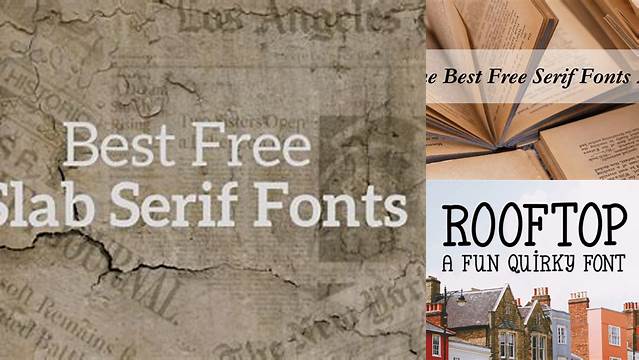
Best Fonts In Use: A Free And Comprehensive Guide
Introduction to Free Fonts in Use
Hey guys! Let's dive into the exciting world of fonts in use, particularly focusing on the fantastic realm of free fonts. When we talk about fonts in use, we're not just discussing the design of the typeface itself, but also how it's implemented in various projects – think logos, websites, posters, and more. Finding the right font can be a game-changer for any design, and the fact that there are so many amazing free options out there is just incredible. In this guide, we'll explore the importance of selecting the perfect font, where to find these free gems, and how to use them effectively in your projects. The impact of typography on design cannot be overstated. A well-chosen font can convey the intended message, evoke emotions, and create a cohesive visual identity. Whether you're working on a sleek, modern website or a vintage-inspired poster, the font you choose plays a crucial role in the overall aesthetic and effectiveness of your design. Free fonts offer a cost-effective solution for designers, especially those just starting out or working on projects with limited budgets. However, the term "free" doesn't mean you have to compromise on quality or style. There is a vast collection of high-quality free fonts available, ranging from classic serif and sans-serif typefaces to more decorative and script styles. Understanding how fonts are used in different contexts is key to making informed decisions. Consider the overall tone and purpose of your project. Are you aiming for a professional and corporate look? A playful and whimsical feel? Or something elegant and sophisticated? The fonts you choose should align with these goals. Exploring real-world examples of fonts in use can provide valuable insights and inspiration. Look at how different fonts are used in logos, websites, magazines, and other media to see what works well and why. Pay attention to the combinations of fonts used together, as this can significantly impact the visual harmony of your design. So, let's get started on this journey to discover the best free fonts in use and how they can elevate your design projects!
Why Choosing the Right Font Matters
Choosing the right font is super important, guys, because it's like the voice of your design. It's not just about making things look pretty; it's about communicating effectively. The right font can grab attention, set the mood, and even make your message more memorable. Think of it this way: a formal invitation would look totally out of place with a bubbly, cartoonish font, right? Similarly, a serious business report needs a font that screams professionalism and clarity. Fonts have personalities, and they can significantly influence how people perceive your content. Imagine you're designing a logo for a tech startup. A sleek, modern sans-serif font might be the perfect choice to convey innovation and forward-thinking. On the other hand, if you're working on a vintage-inspired poster, a classic serif font with a touch of character could be just what you need. The key is to align the font's personality with the overall message and brand identity. Beyond aesthetics, readability is another critical factor. A beautiful font is useless if it's difficult to read, especially in body text. Consider the size, spacing, and contrast of the font to ensure it's legible across different devices and screen sizes. In the digital world, where content is often consumed on smartphones and tablets, readability is paramount. Font psychology also plays a role in font selection. Different fonts evoke different emotions and associations. Serif fonts, with their classic and traditional feel, often convey authority and trustworthiness. Sans-serif fonts, with their clean and modern lines, tend to project a sense of simplicity and clarity. Script fonts, with their elegant and flowing strokes, can add a touch of sophistication and creativity. Understanding these psychological cues can help you choose fonts that resonate with your target audience and reinforce your message. Moreover, the right font can enhance brand recognition. Consistent use of specific fonts across your branding materials – from your logo and website to your marketing collateral – can create a strong visual identity that customers easily recognize and associate with your brand. This consistency builds trust and reinforces your brand's message. So, when you're choosing a font, don't just pick something that looks nice. Think about the message you want to convey, the emotions you want to evoke, and the overall impact you want to make. The right font can be a powerful tool in your design arsenal, helping you communicate effectively and create memorable experiences.
How to Effectively Use Free Fonts in Your Projects
Alright, guys, so you've got your hands on some amazing free fonts – that's awesome! But now comes the crucial part: using them effectively in your projects. Just downloading a cool font doesn't guarantee a stellar design. It's all about how you implement it. Let's break down some key strategies for making the most of your free font finds. First off, think about hierarchy. Hierarchy is how you guide the viewer's eye through your design, and typography plays a huge role in this. Use different font sizes, weights, and styles to create a clear visual hierarchy. For example, your headings should be larger and bolder than your body text, and you might use a distinct font for subheadings to further differentiate them. This helps readers quickly grasp the structure and key information of your content. Font pairing is another critical skill. Combining different fonts can add visual interest and create a more dynamic design, but it can also go horribly wrong if not done carefully. A general rule of thumb is to pair a serif font with a sans-serif font. This creates a nice contrast while maintaining readability. For instance, you might use a bold sans-serif for headings and a classic serif for body text. Tools like FontPair can help you discover harmonious font combinations. Consider the context of your design. The font you choose should align with the overall tone and purpose of your project. A playful, whimsical font might be perfect for a children's book but would be out of place in a corporate report. Think about the message you're trying to convey and select fonts that reinforce that message. Pay attention to readability. A beautiful font is useless if it's difficult to read. Ensure that your font is legible at different sizes and on different devices. Consider factors like letter spacing, line height, and contrast. If your text is too small or the spacing is too tight, it can be straining to read, especially on screens. Use white space effectively. White space, or negative space, is the empty space around your text and other design elements. It's crucial for creating a clean and uncluttered design. Give your text room to breathe by using sufficient margins and padding. This improves readability and helps draw attention to the important elements of your design. Test your fonts across different platforms and devices. What looks great on your computer screen might not look as good on a mobile device or in print. Always preview your designs in different formats to ensure that your fonts are rendering correctly and that the overall layout is visually appealing. Be mindful of licensing. Even though you're using free fonts, it's essential to understand the licensing terms. Make sure that the font license allows for your intended use, whether it's for personal or commercial projects. Some fonts may have restrictions on how they can be used, such as requiring attribution or prohibiting embedding in certain types of applications. Finally, don't be afraid to experiment. Try out different font combinations, sizes, and styles to see what works best for your project. The more you experiment, the better you'll become at choosing and using fonts effectively. Remember, typography is a powerful tool, and with a little practice, you can use it to create stunning designs.
Examples of Fonts in Use
Let's get into some real-world examples, guys! Seeing how fonts are used in various projects can give you a ton of inspiration and help you understand the principles we've talked about in action. We'll look at logos, websites, posters, and more to see how different typefaces contribute to the overall design. Starting with logos, think about some iconic brands. For instance, the Coca-Cola logo uses a classic script font that's instantly recognizable and conveys a sense of tradition and nostalgia. On the other hand, brands like Google and Apple use clean, modern sans-serif fonts that reflect their innovative and forward-thinking nature. The font choice in a logo is crucial because it's often the first thing people see and associate with the brand. Moving on to websites, typography plays a vital role in user experience. A website with clear, readable fonts is much more engaging and effective than one with cluttered or illegible text. Many websites use a combination of a sans-serif font for headings and a serif font for body text to create a balance between visual interest and readability. For example, a news website might use a bold sans-serif for headlines to grab attention and a classic serif for the article text to ensure comfortable reading. E-commerce websites often use clean and simple fonts to keep the focus on the products, while creative websites might experiment with more unique and decorative fonts to reflect their artistic style. Posters and print materials offer another interesting context for font use. Posters often rely on bold, eye-catching fonts to attract attention from a distance. The font should be legible and impactful, conveying the message quickly and effectively. Event posters, for example, might use a combination of a bold display font for the event name and a smaller, more readable font for the details. Book covers are another great example. The font on the cover needs to reflect the genre and tone of the book. A thriller might use a suspenseful and edgy font, while a romance novel might opt for a more elegant and romantic typeface. The font choice can significantly influence a potential reader's perception of the book. In the world of magazines and editorial design, typography is used to create visual hierarchy and guide the reader through the content. Magazines often use a variety of fonts to differentiate headings, subheadings, and body text. They might also use decorative fonts for pull quotes and other visual elements. The key is to create a cohesive and visually appealing layout that enhances the reading experience. Social media graphics also provide a wealth of examples. The fonts used in social media posts and ads need to be attention-grabbing and easy to read on small screens. Many brands use consistent typography across their social media channels to reinforce their brand identity. In UI/UX design, typography is crucial for creating a user-friendly interface. Fonts should be clear, legible, and consistent throughout the app or website. The font choices should also align with the overall design aesthetic and brand identity. Looking at these examples, you can see how versatile fonts can be and how much impact they have on the overall design. Pay attention to the fonts used in the designs you admire and try to understand why they work well. This will help you develop your own eye for typography and make informed choices in your own projects.
Conclusion: Mastering Free Fonts in Use
So, guys, we've journeyed through the world of free fonts in use, and hopefully, you're feeling inspired and ready to tackle your next design project with a fresh perspective on typography. We've covered why choosing the right font matters, where to find amazing free options, how to use them effectively, and even looked at real-world examples to spark your creativity. Mastering the use of fonts is an ongoing process, but by understanding the fundamentals and practicing your skills, you can elevate your designs and communicate your message with clarity and style. Remember, typography is more than just making words look pretty – it's about conveying meaning, evoking emotions, and creating a visual identity. The fonts you choose play a crucial role in how your audience perceives your message, so it's worth investing the time and effort to get it right. Don't be afraid to experiment with different fonts and font combinations. Try out new styles and see how they impact your designs. The more you explore, the better you'll become at choosing fonts that align with your vision and goals. Keep an eye on trends in typography, but also develop your own personal style. What fonts do you gravitate towards? What combinations do you find most appealing? Your unique perspective and aesthetic will shine through in your work, making your designs stand out. Take advantage of the resources available to you. There are countless websites, blogs, and tutorials that offer valuable insights and inspiration on typography. Join online communities and forums where you can connect with other designers and share your work. Learning from others and getting feedback on your designs is a great way to grow your skills. Always pay attention to the details. Small things like letter spacing, line height, and kerning can make a big difference in the overall readability and visual appeal of your text. Take the time to fine-tune these elements and ensure that your typography is polished and professional. Finally, remember that typography is a powerful tool, but it's just one element of your overall design. It should work in harmony with the other elements, such as color, imagery, and layout, to create a cohesive and impactful design. By mastering the use of fonts and integrating them seamlessly into your designs, you can create visually stunning and effective communications. So go forth, explore the world of free fonts, and let your typography skills shine!